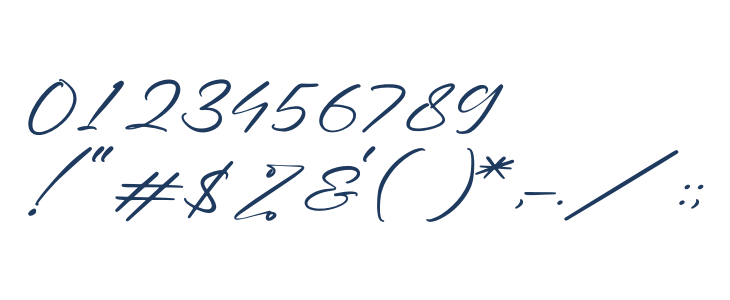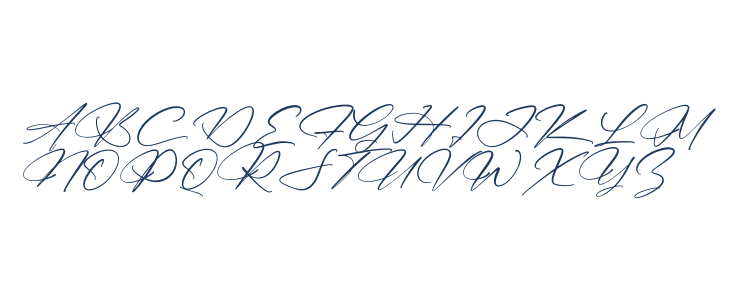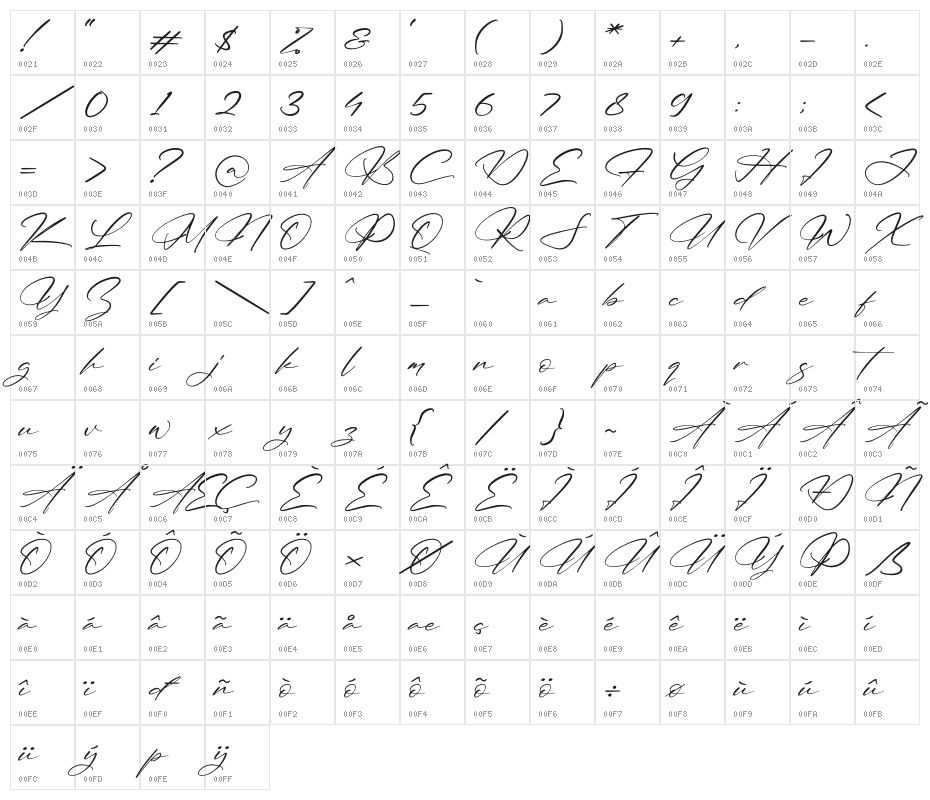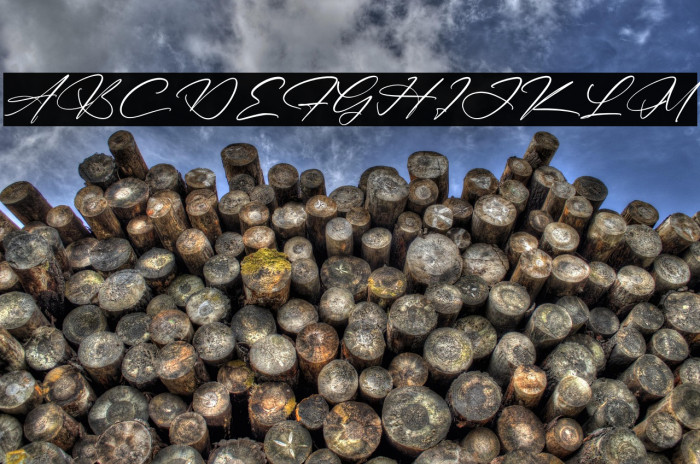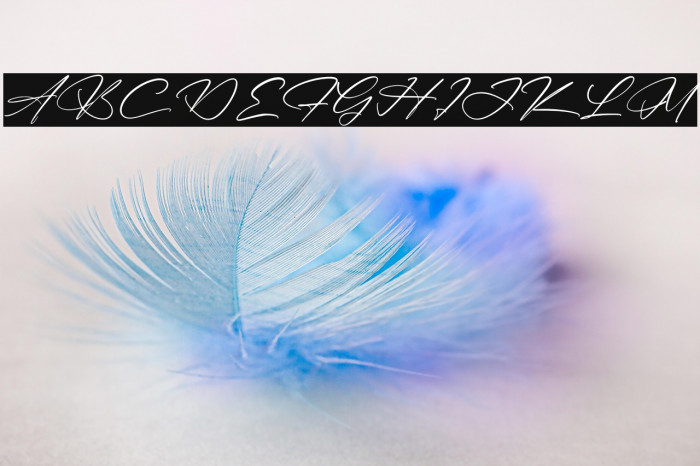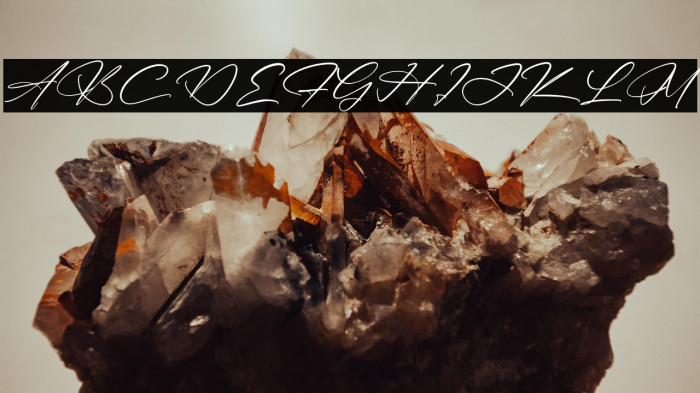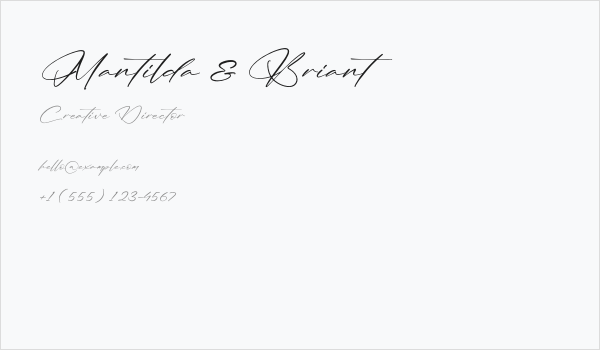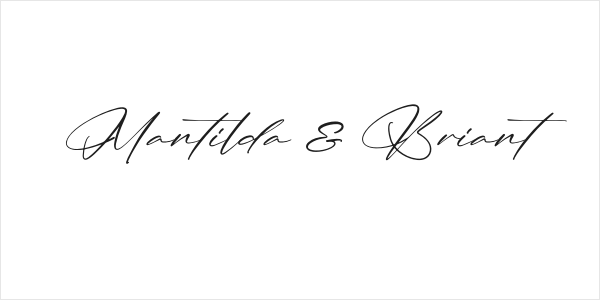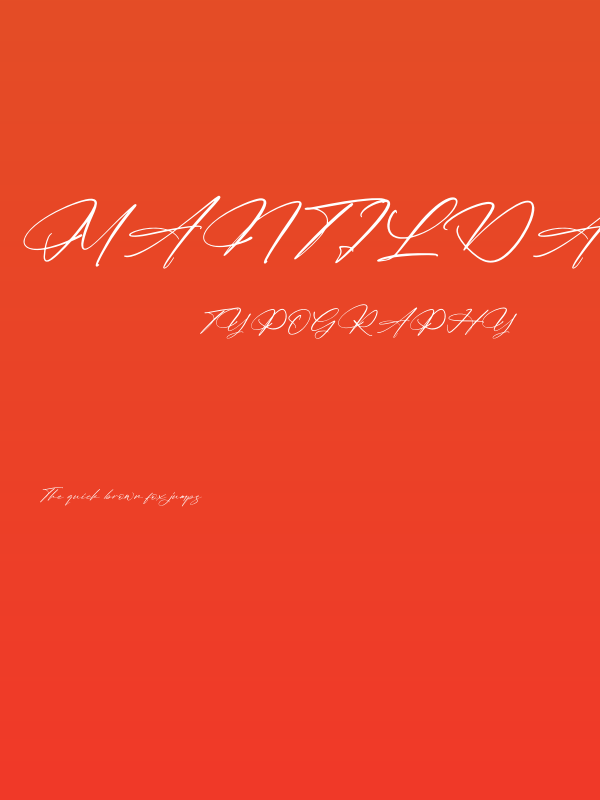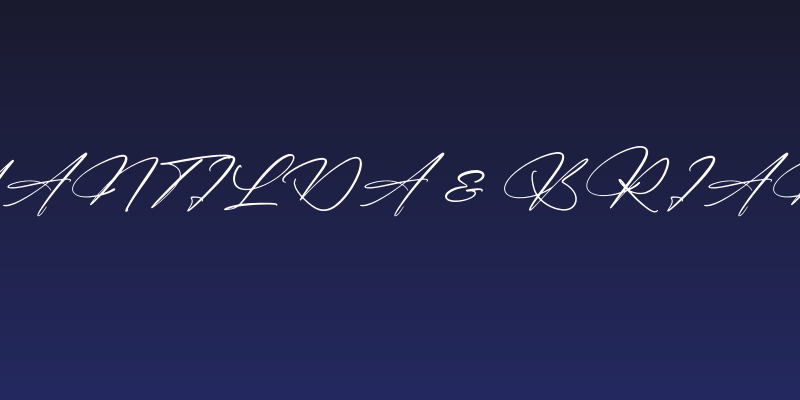
Mantilda & Briant Font
Mantilda & Briant Description
Elegant, flowing script font with a handwritten calligraphic style featuring both thin and thick strokes, smooth curves, and a natural, artistic flair.
| Overall Style | Elegant, Artistic |
| Use Case | Decorative headlines, invitations, branding |
| Proposed Projects | Wedding invitations, greeting cards, logos, branding, elegant packaging, and decorative headlines. |